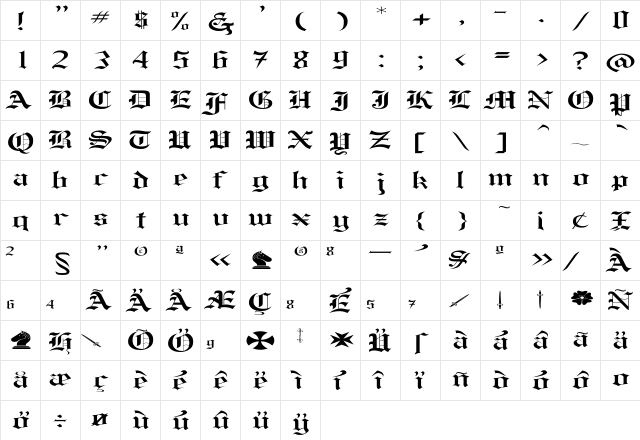
Helena Ex Regular Font Preview
Helena Ex Regular
Helena Ex Regular Font Details
Design Context for Helena Ex Typeface
Helena Ex is a composed and adaptable typeface that performs quietly and consistently across a wide range of design contexts.